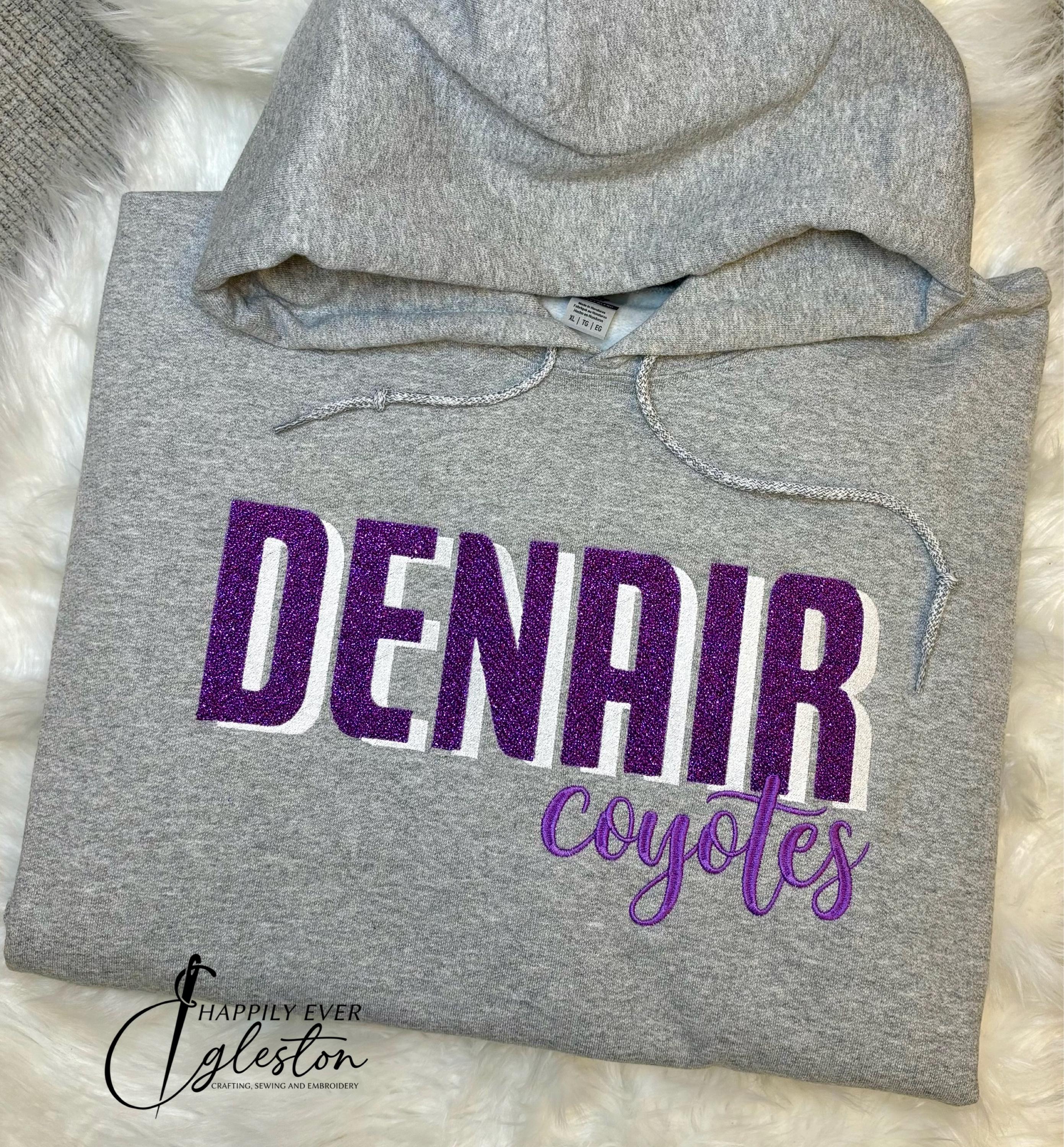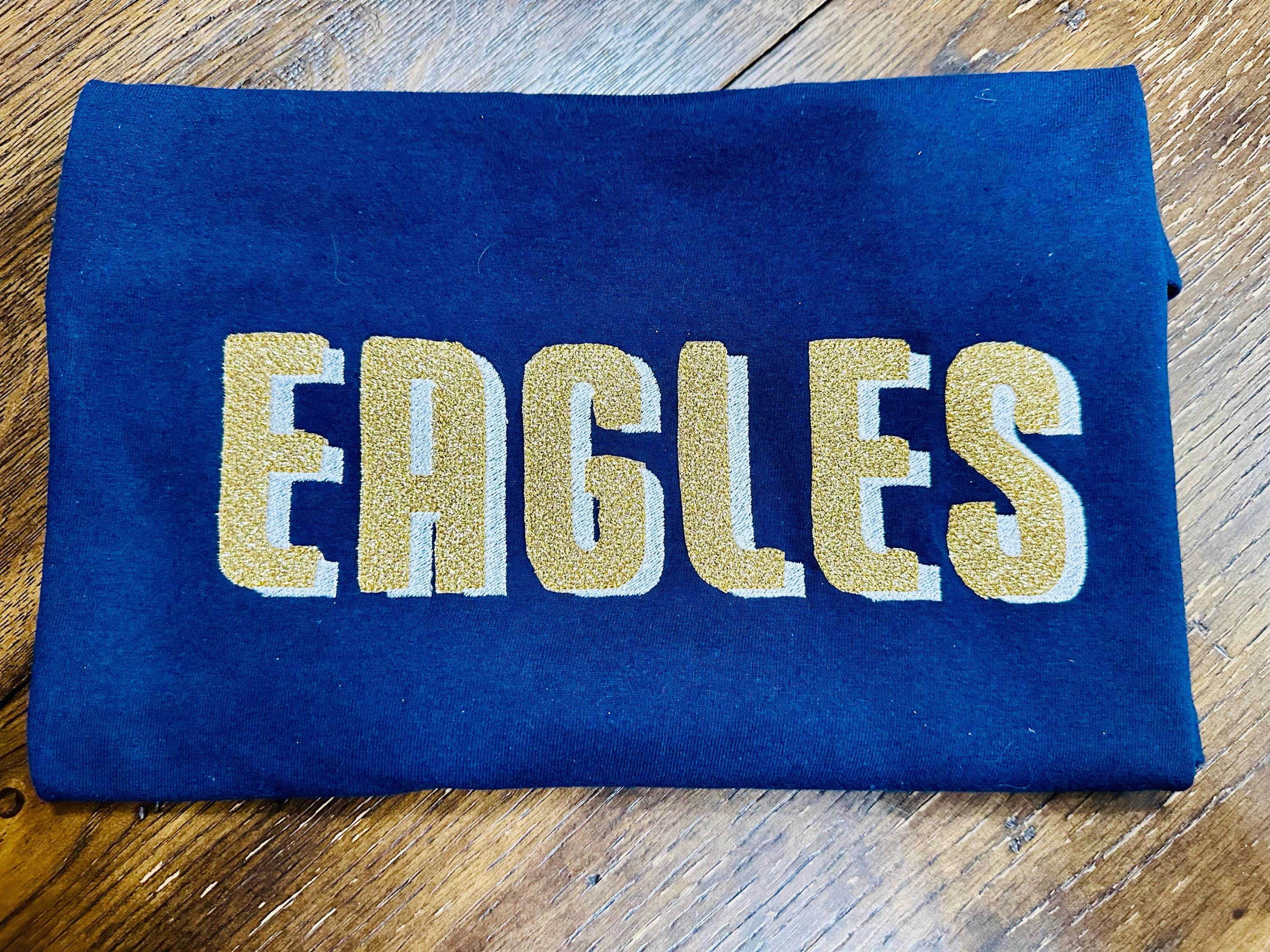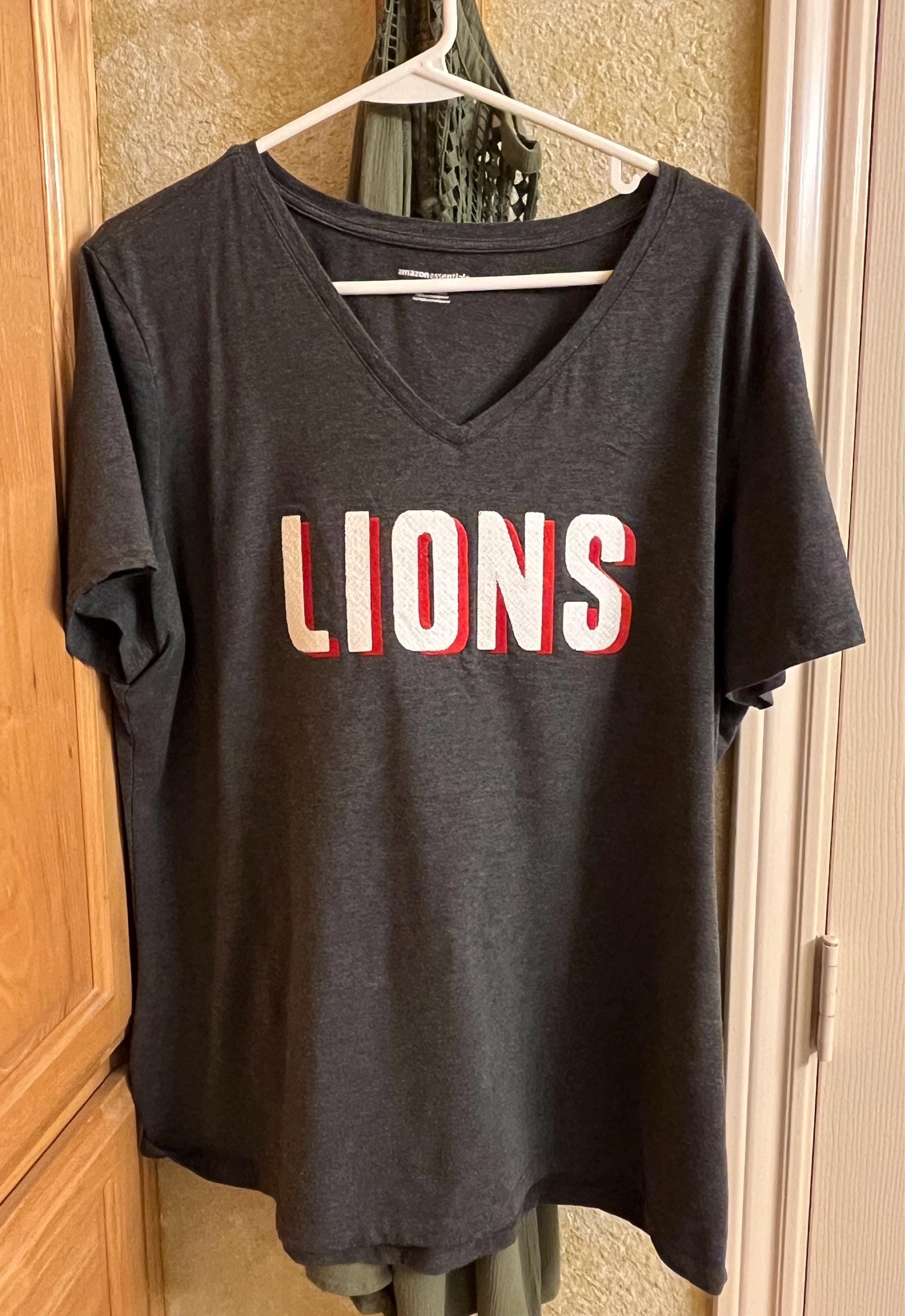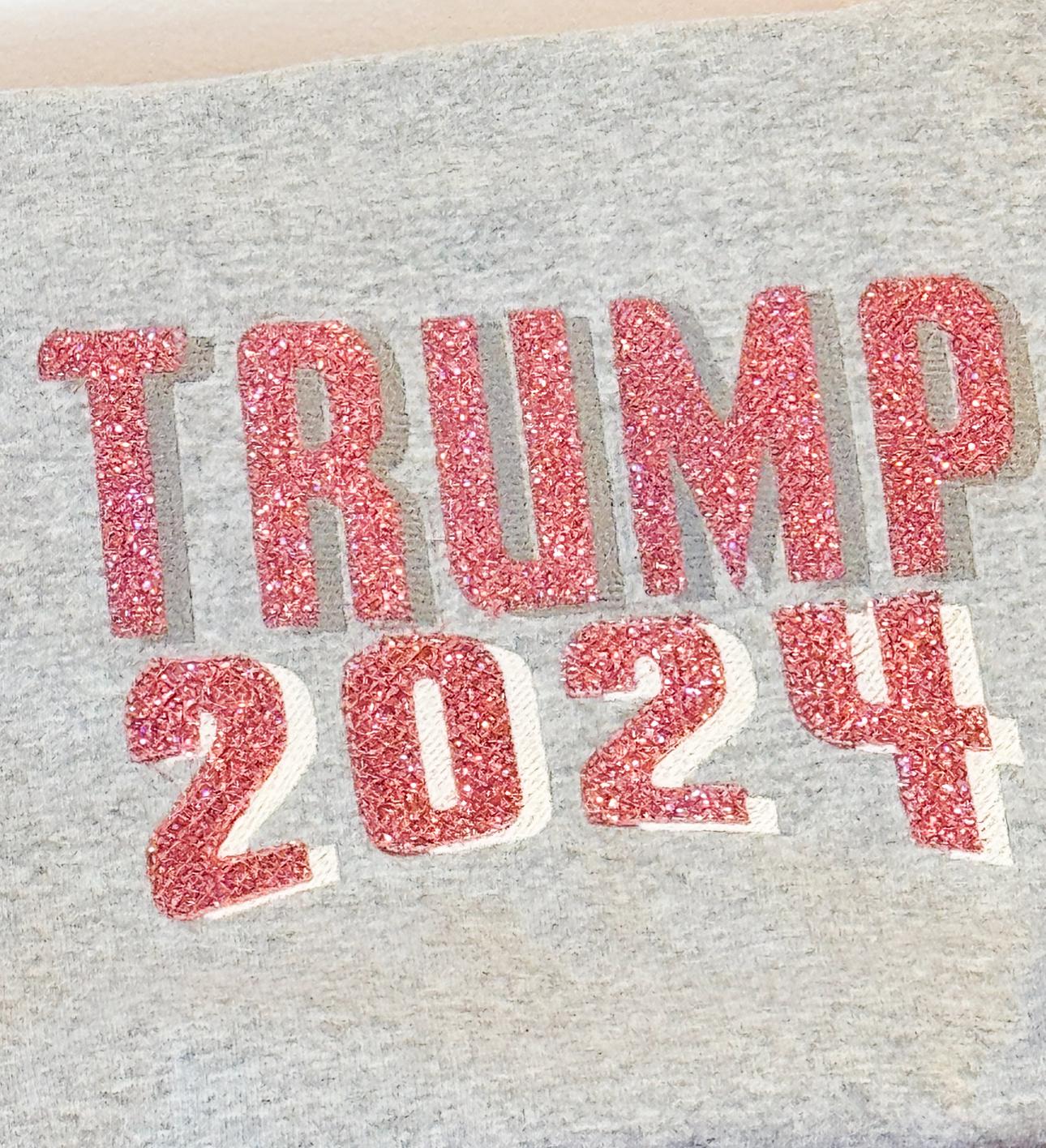
Glitter Shadow Font HTV vinyl embroidery glitter vinyl alphabet letters Sparkling effect machine embroidery designs sizes 1.8 up to 3.6in BX included
Entire alphabet, uppercase and lowercase letters, and numbers.